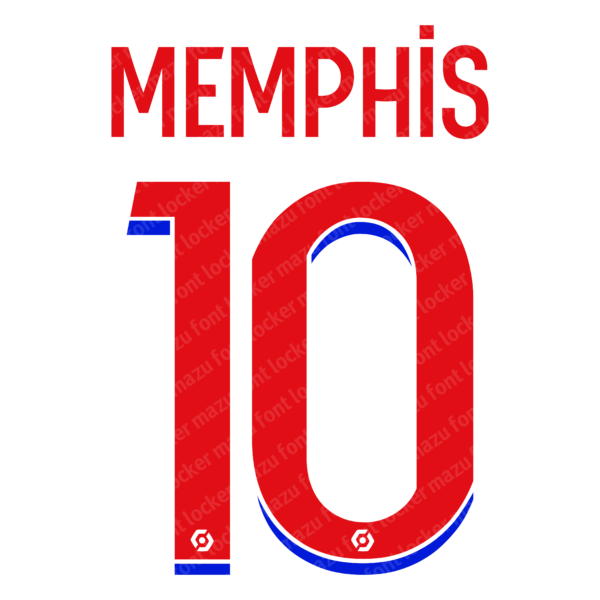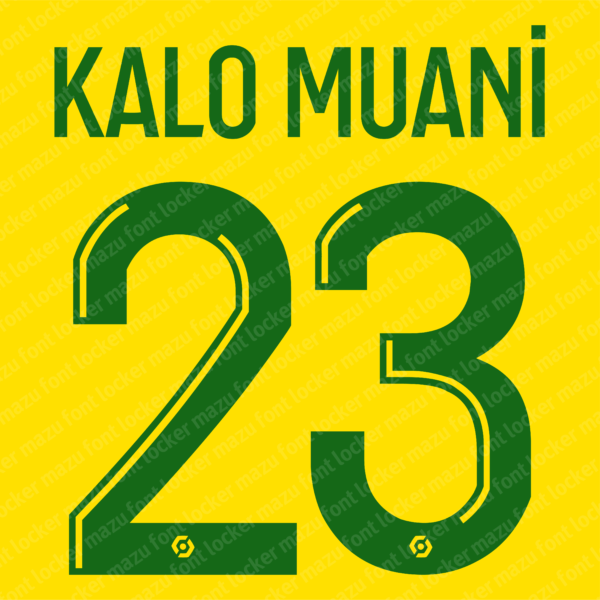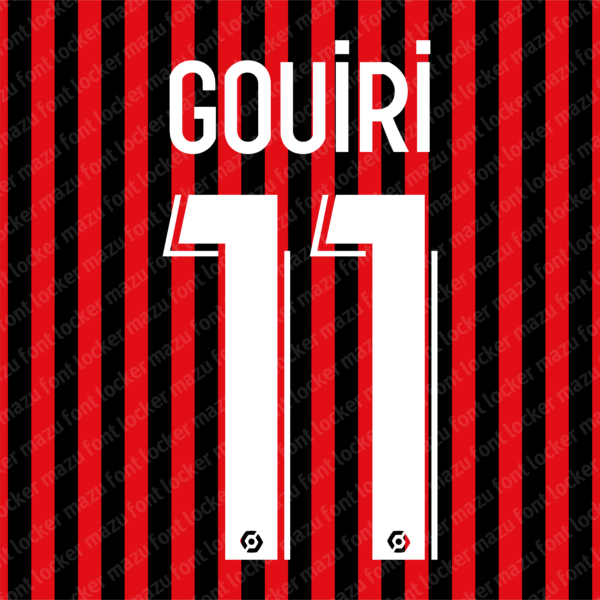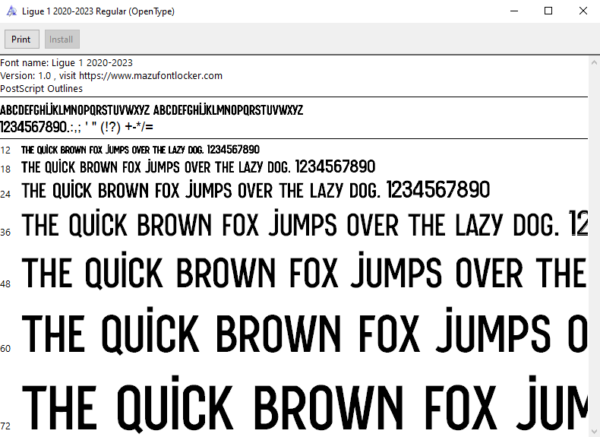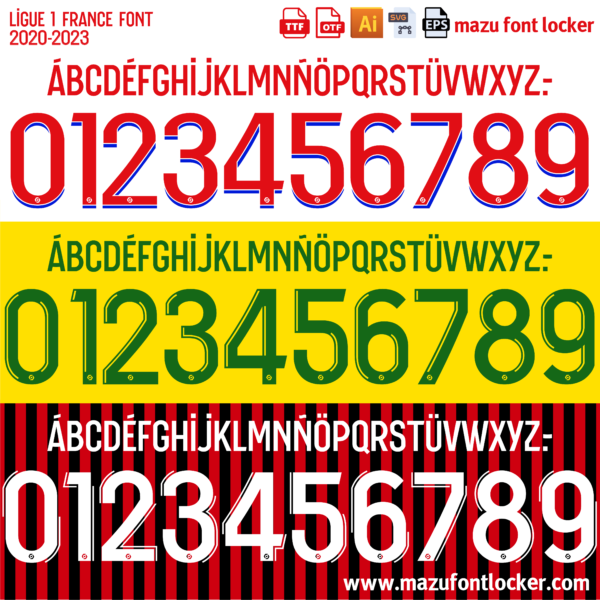
Ligue 1 France 2020-2023 Font Vector – Elegant French Golden Era
Ligue 1 France 2020-2023 Font is a high-quality football jersey font vector designed to replicate the official lettering and numbering style used during the 2020-2023 season. This Ligue 1 France 2020-2023 font is perfect for designers, football fans, and creators who want accurate and professional jersey customisation.
Inspired by the official kit of 2020-2023, this Ligue 1 France 2020-2023 font delivers a clean and authentic match-day appearance. Every letter and number has been carefully recreated to match the real jersey design, ensuring your projects look realistic and professional.
Ligue 1 France 2020-2023 Font Vector – Authentic Jersey Lettering
Ligue 1 France 2020-2023 font is a high-quality football jersey font vector created to replicate the official lettering and numbering style used during the iconic 2020-2023 Season. Perfect for designers, football fans, and jersey customisation projects, this font set delivers an authentic and professional match-day appearance.
Inspired by the original Ligue 1 France 2020-2023 team kit, every letter and number has been carefully recreated to ensure accurate retro styling for both digital and print projects.
• Authentic 2020-2023 Ligue 1 France jersey lettering style
The authentic lettering style helps recreate the classic look of the Ligue 1 France 2020-2023 kit with professional accuracy.
Unlike generic jersey fonts, this set is designed with a strong focus on authenticity and accuracy. Every detail is based on the original match lettering style used during the 2020-2023 season, helping designers and collectors create realistic football shirt designs.
This Ligue 1 France 2020-2023 font vector set is designed for authentic football jersey customization and works perfectly for retro football projects, collector designs, and professional sportswear artwork.